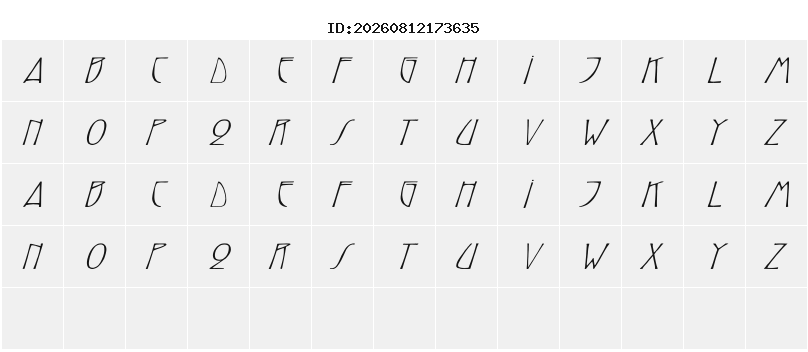
• Font Name: ReynoldCaps Wd italic
• Full Font Name: ReynoldCaps Wd Italic
About ReynoldCaps Wd italic.ttf
ReynoldCaps Wd italic.ttf is a modern, elegant sans-serif font designed for ultimate readability and visual harmony. Perfect for branding, headlines, web design, and print materials.